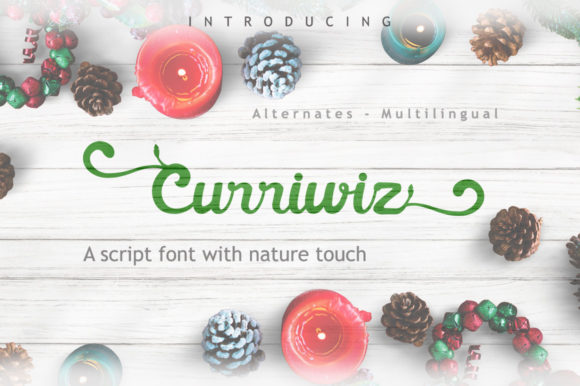
Introducing Curriwiz Font, a captivating script family that breathes life into your digital creations with its graceful curves and sophisticated style. As an exclusive creation from the talented leamsign, Curriwiz embodies the essence of timeless elegance, fusing traditional charm with modern functionality.
Step into a world of limitless possibilities, where every letter dances upon the screen with a touch of magic. Curriwiz's versatile personality makes it the perfect choice for a myriad of design endeavors, from intimate wedding invitations to bold brand logos. Its flowing strokes evoke a sense of movement, adding a touch of whimsy to your digital masterpieces.
But Curriwiz is more than just a pretty face. It's a font that thinks. With its thoughtfully crafted alternate characters, you hold the power to unleash your creativity, tailoring Curriwiz to suit your unique vision. Craft logos that leave an unforgettable mark, design wedding invitations that whisper romance, and create product packaging that captivates the eye.
Whether you're a seasoned designer or just starting your creative journey, Curriwiz is your steadfast companion, guiding you through the world of typography with effortless grace. Its intuitive design and endless possibilities ignite your imagination, transforming your digital dreams into tangible works of art.
So, embrace the allure of Curriwiz Font and embark on a creative expedition where imagination knows no bounds. Its captivating charm and boundless versatility will elevate your designs to new heights, leaving an indelible mark on the hearts and minds of your audience. Dive into the world of Curriwiz today and unlock the limitless potential of your digital creations.